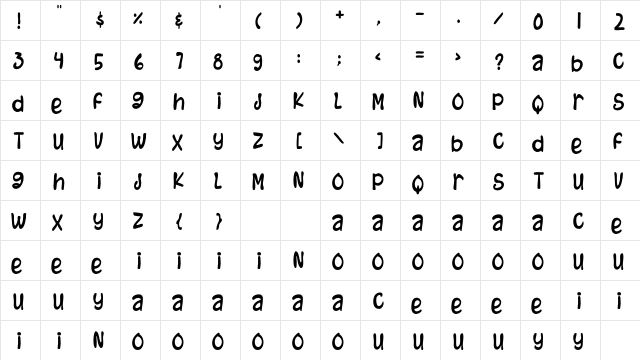
Keep Snowing Regular Font Preview
Keep Snowing Regular
Keep Snowing Regular Font Details
Design Context for Keep Snowing Typeface
Keep Snowing is a composed and adaptable typeface that performs quietly and consistently across a wide range of design contexts.
Pro Tip: Pair Keep Snowing with a font of contrasting weight or personality to build a more expressive typographic hierarchy.